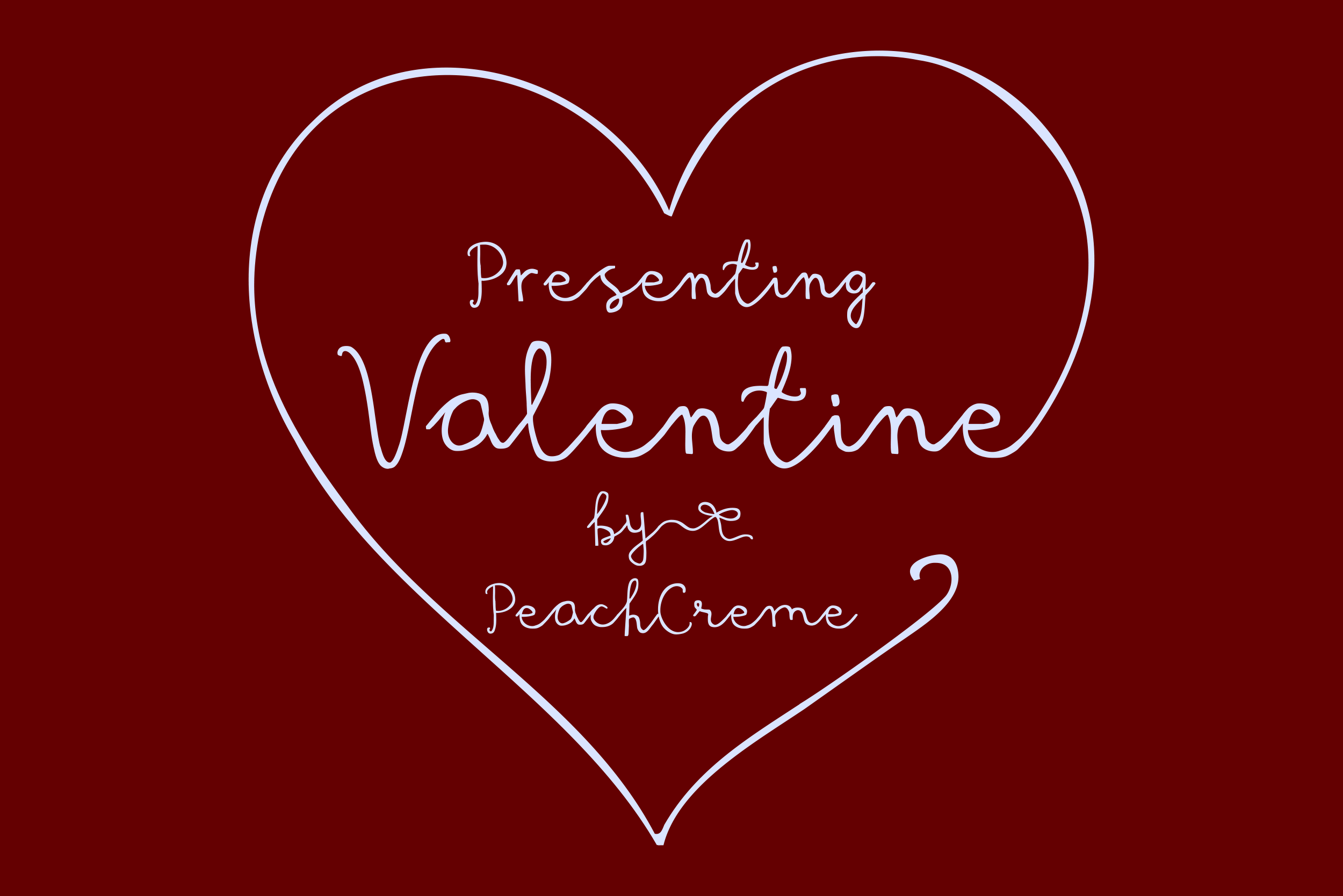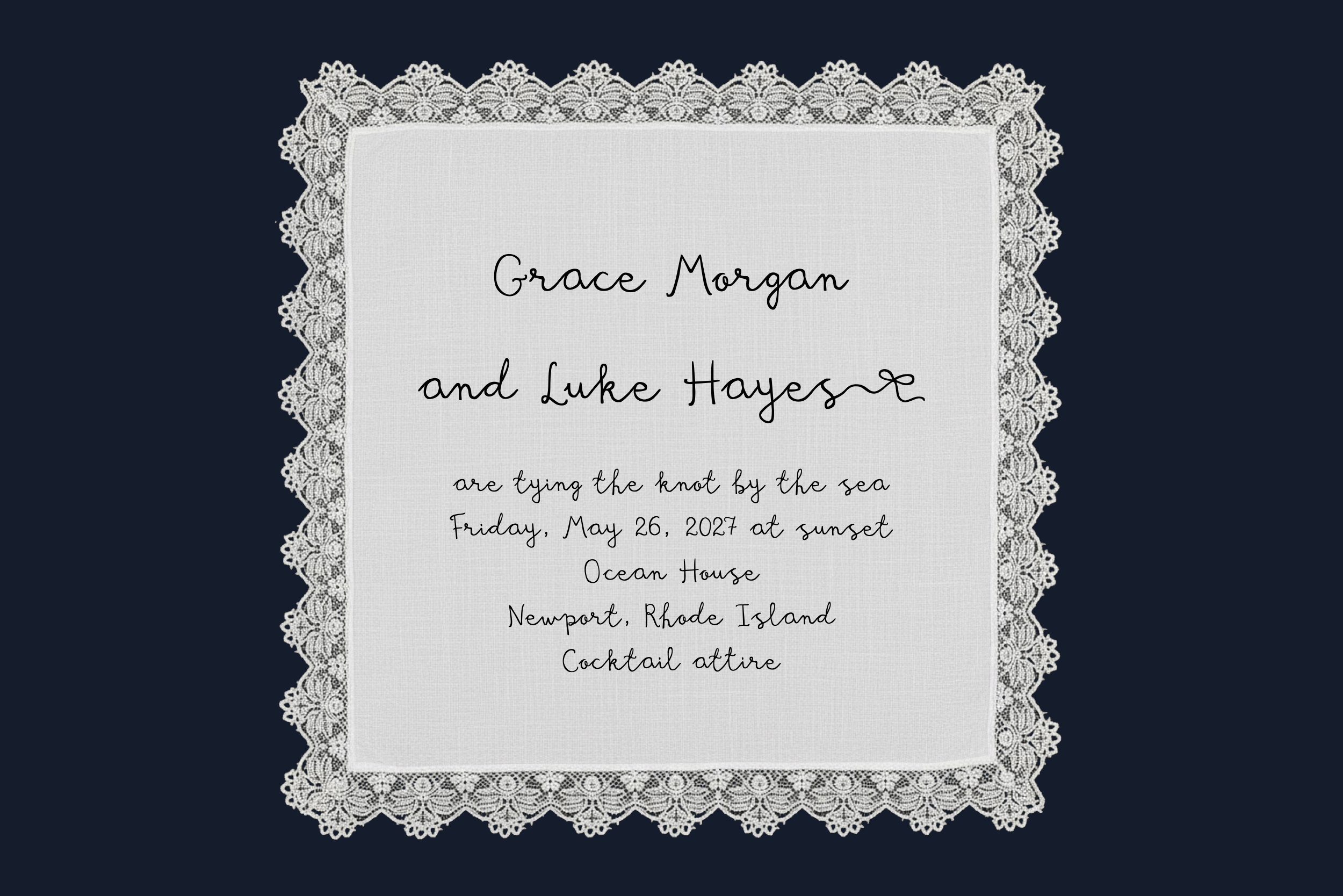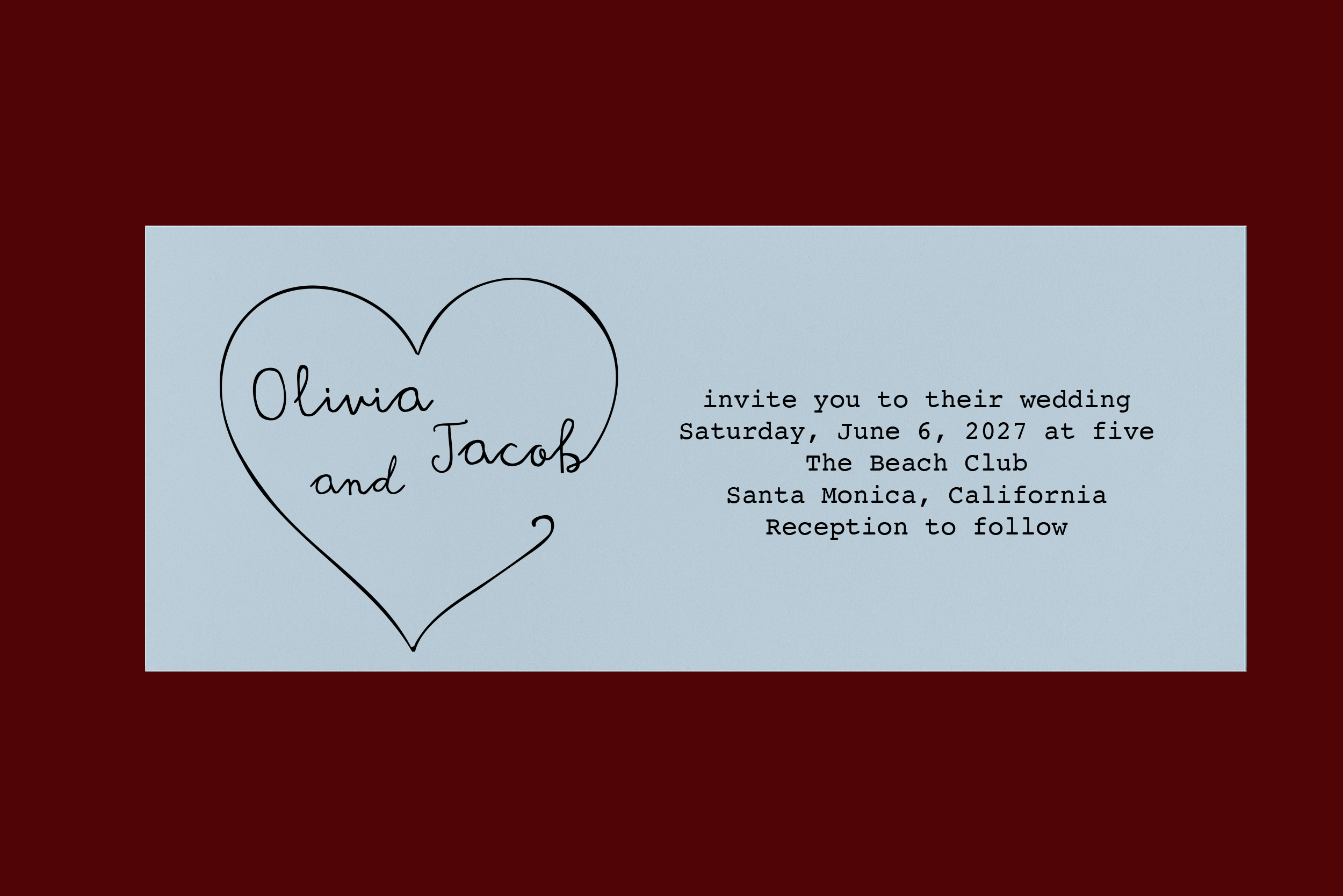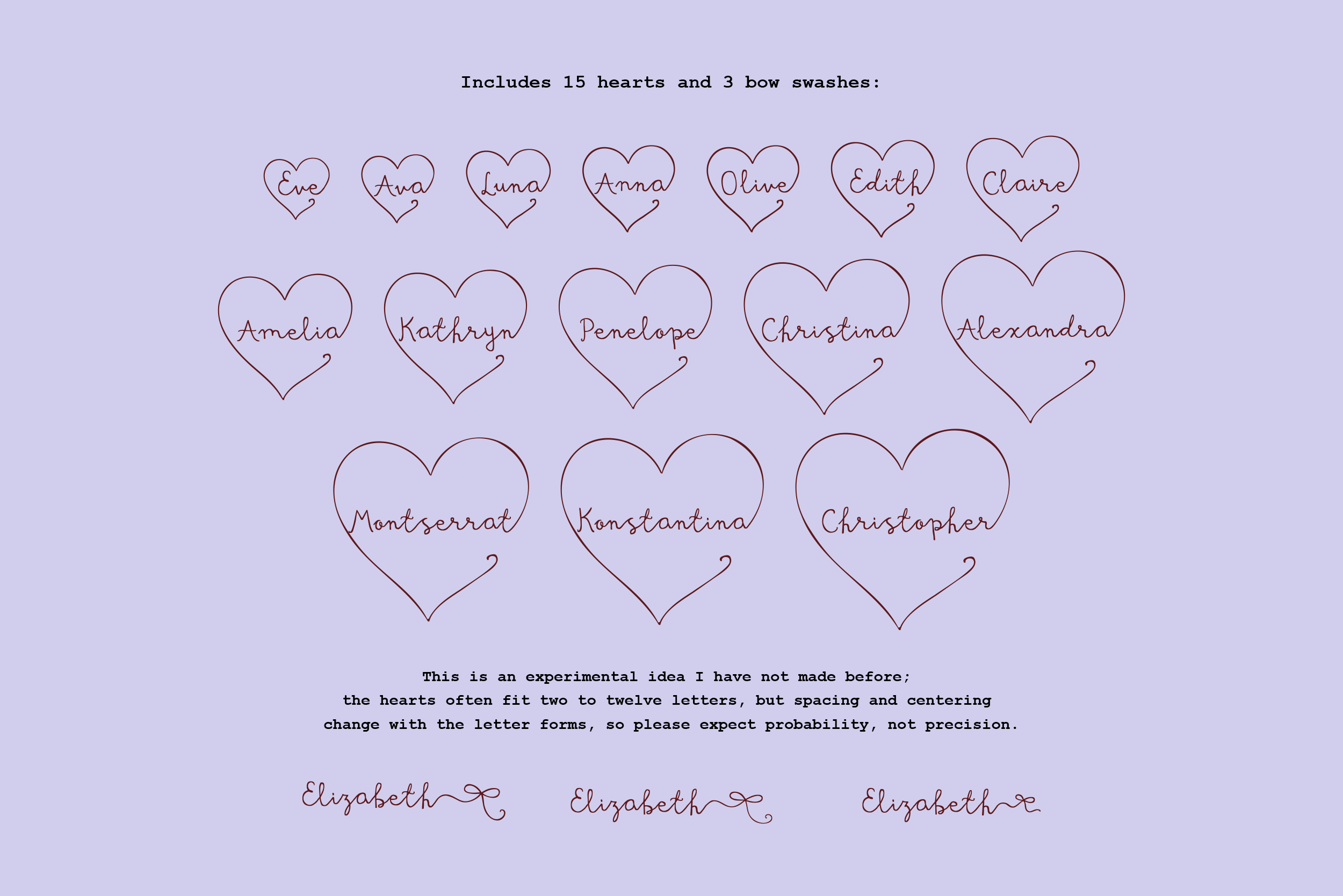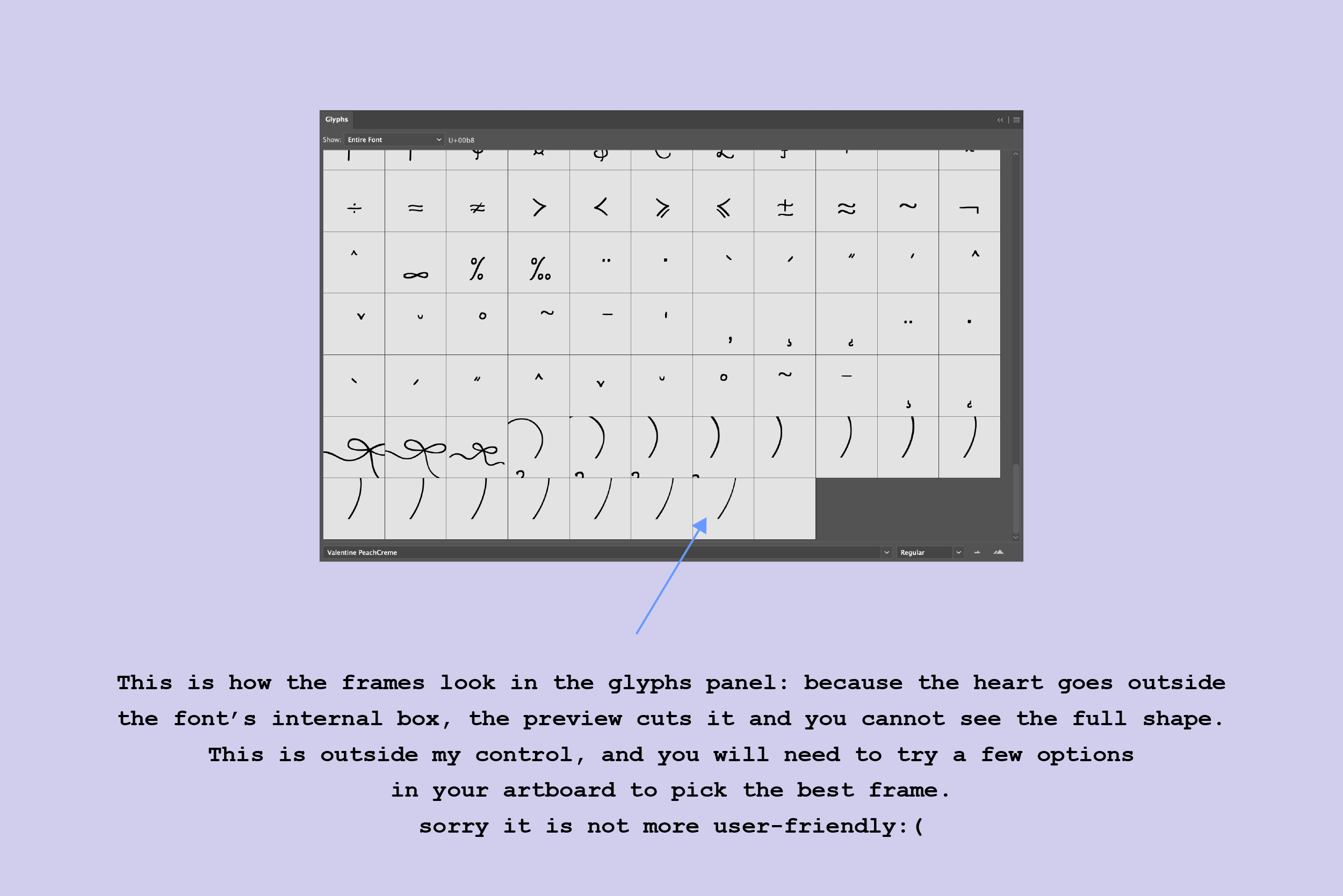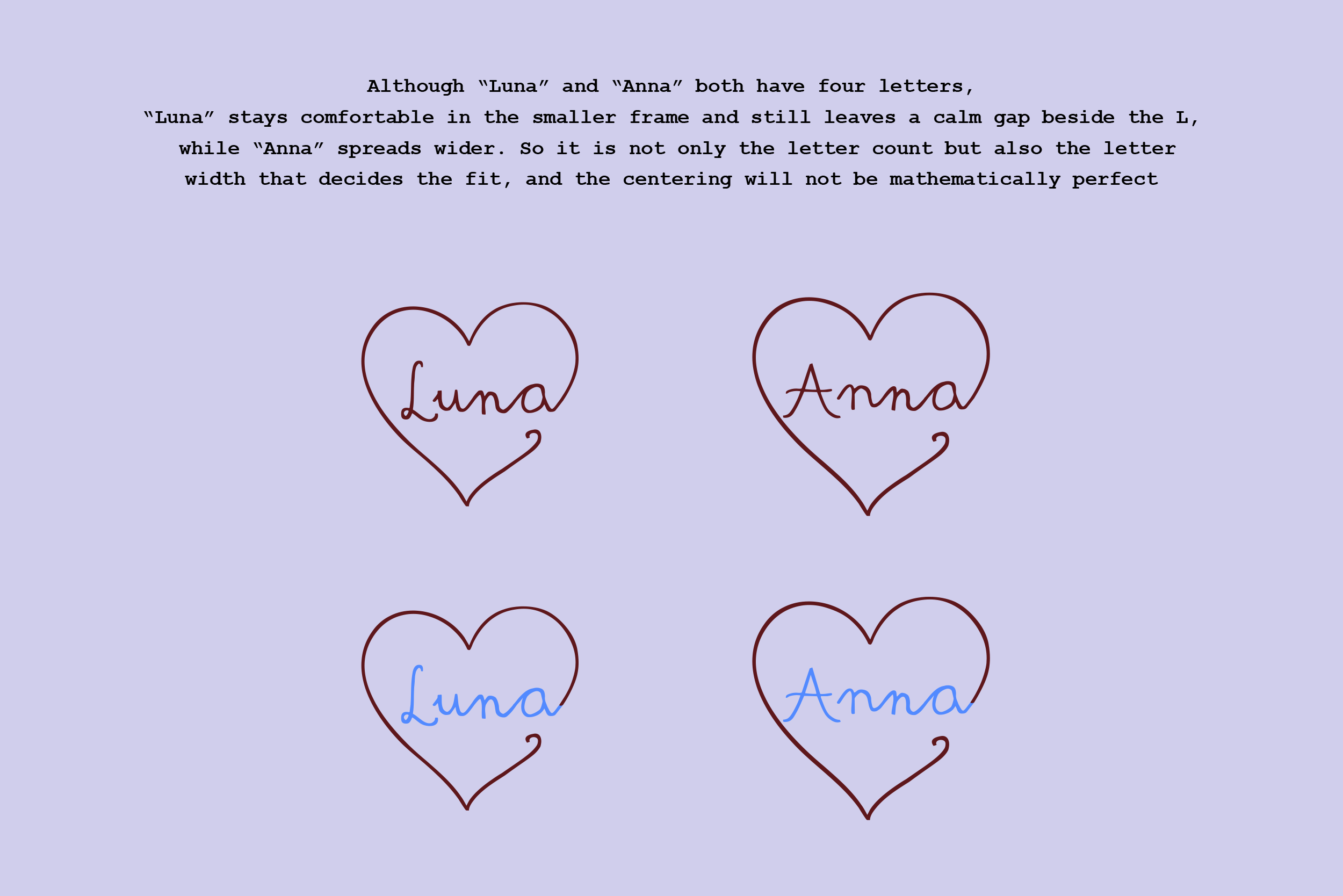
Valentine PeachCreme // Font with Bows, Hearts
This is a new experimental font. I wanted a sweet way to place names inside a drawn heart, something you can use for wedding suites or for keepsakes for children. To make this happen I let the heart line travel outside the usual font box. It is not the usual technical approach, and it brings a few limits, but it also gives a very charming result.
Please note: Fonts normally keep every shape inside an invisible box. When the heart goes beyond that box, previews in the glyphs panel can cut the shape and you cannot see the full heart there. On your artboard the heart is complete, but in the panel you will need to try a few options to pick the right frame. Please expect a little extra clicking.
The hearts often fit two to twelve letters. Not for very long names.